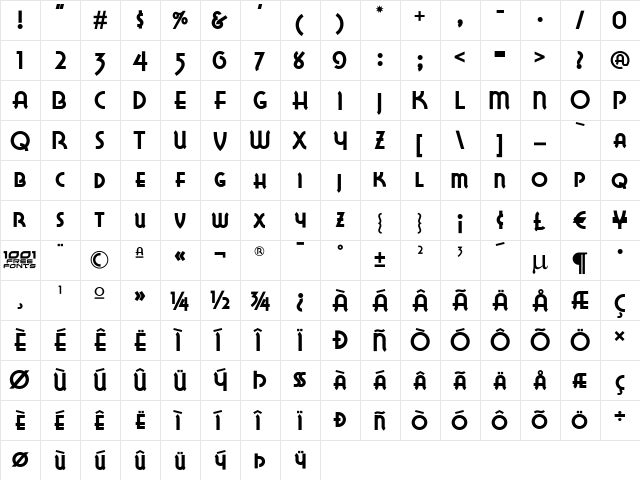
Lake Wobegon NF Regular
Design Context for Lake Wobegon NF Typeface
Lake Wobegon NF is a composed and adaptable typeface that performs quietly and consistently across a wide range of design contexts.